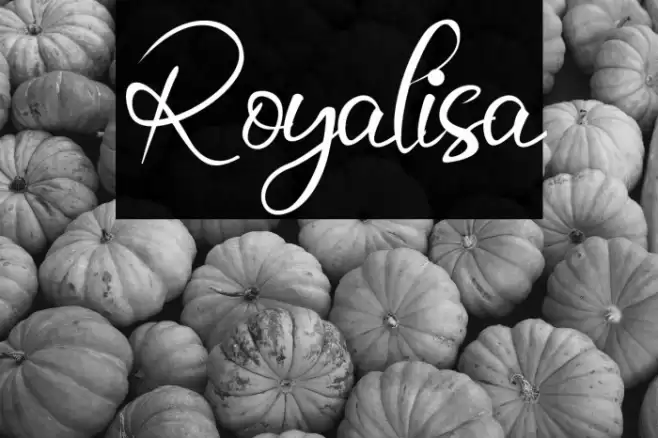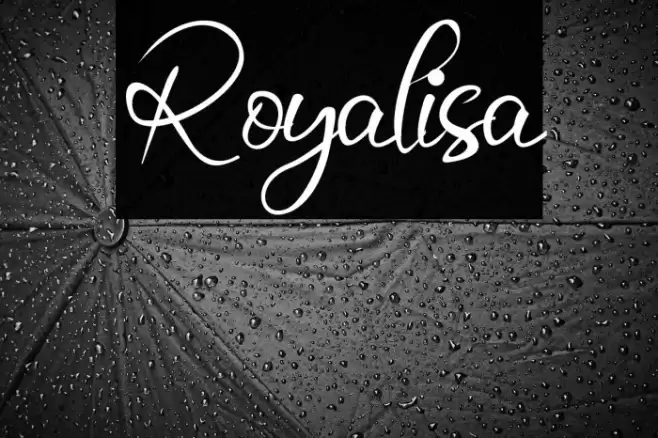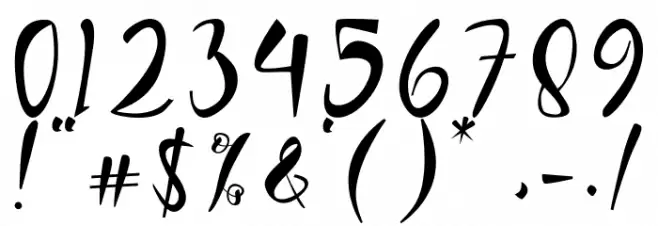
Royalisa Font
Royalisa Description
This font features an elegant and flowing script style, characterized by its smooth, cursive strokes and graceful curves. The uppercase letters are tall and slender, with a slight slant that adds a dynamic feel. The lowercase letters are more rounded and connected, creating a harmonious and fluid appearance. The numerals are consistent with the overall style, maintaining the same elegant curves. Special characters are designed with the same attention to detail, ensuring they blend seamlessly with the rest of the font. This font exudes sophistication and charm, making it ideal for projects that require a touch of elegance.
An elegant, flowing script font with graceful curves and a sophisticated style from Regular fonts.
- Proposed Projects: Ideal for wedding invitations, elegant branding, greeting cards, and upscale packaging.
- Overall Style: Elegant
- Use Case: Logos, Invitations, Decorative text